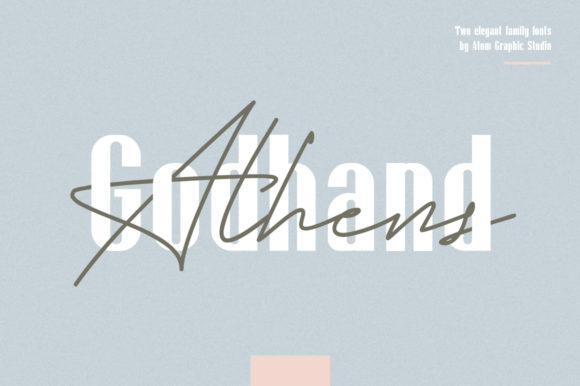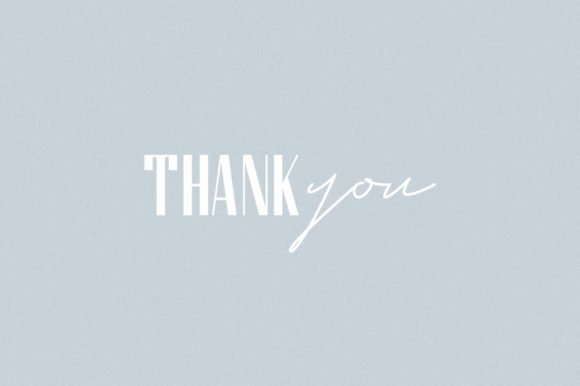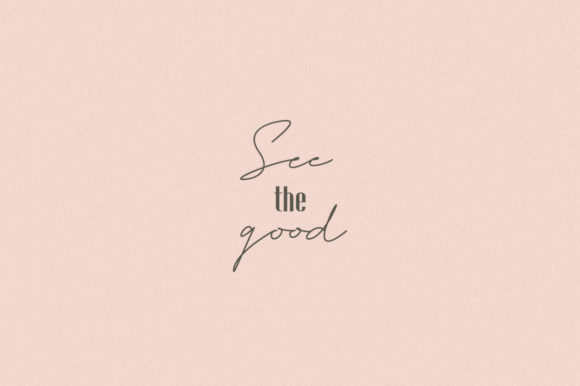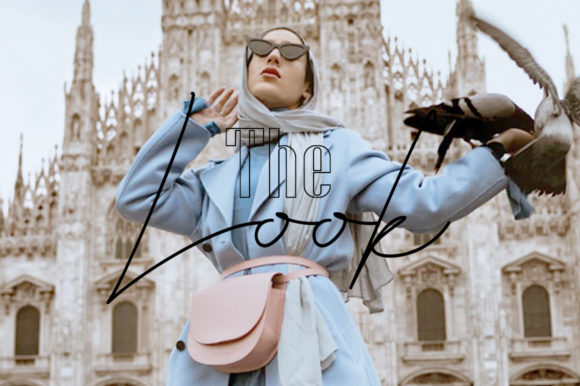
About Godhand Athens Family Font
The Godhand Athens is collection of two font families. All styles can be combined perfectly which gives you the opportunity to create multiple unique designs in an instant.
It’s perfect for high quality logos, posters, wedding invitations, blog posts, social media, and more!